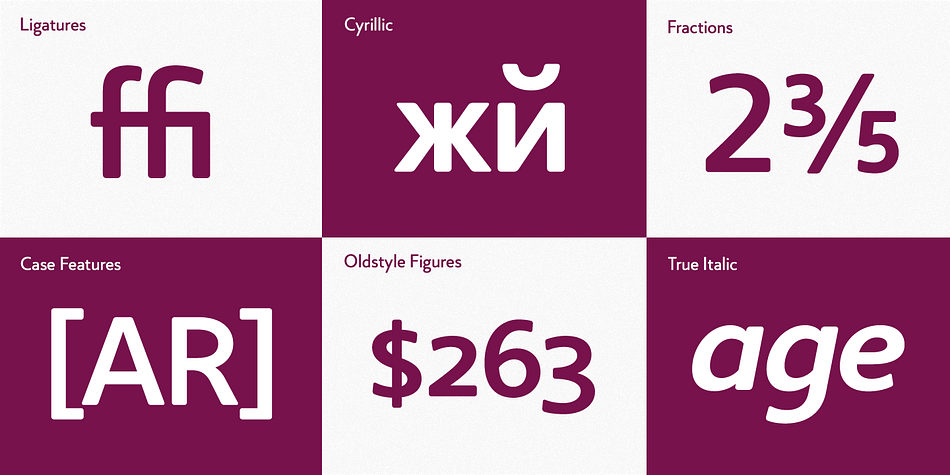
Core Sans BR
Designed by Hyun-Seung Lee, Core Sans BR is a sans serif font family. This typeface has fourteen styles and was published by S-Core.
Core Sans BR Family is designed with rounded stroke endings for visual comfort.
The family has very small x-heights and large ascenders(descenders) which give an elegant feeling in body text.
It is a sans-serif family but it
It is very legible and readable even in small size because of its open counters and distinctive shapes.
Core Sans BR Family consists of 7 weights (Thin, Light, Regular, Medium, Bold, Heavy, Black) and Italics for each format.
Core Sans BR supports complete Basic Latin, Cyrillic, Central European, Turkish, Baltic character sets.
The Core Sans BR Family is a part of the Core Sans Series, such as N, NR, N SC, M, E, A, D, G, R and B.
Core Sans BR Family is designed with rounded stroke endings for visual comfort. The family has very small x-heights and large ascenders(descenders) which give an elegant feeling in body text. It is a sans-serif family but it’s structure is similar to serif fonts, so you can make paragraph beautifully with this font family.
It is very legible and readable even in small size because of its open counters and distinctive shapes.
Core Sans BR Family consists of 7 weights (Thin, Light, Regular, Medium, Bold, Heavy, Black) and Italics for each format.
Core Sans BR supports complete Basic Latin, Cyrillic, Central European, Turkish, Baltic character sets. Each font includes proportional figures, tabular figures, oldstyle figures, numerators, denominators, superscript, scientific inferiors, subscript, fractions and case features.
We highly recommend it for use in books, web pages, screen displays, and so on.